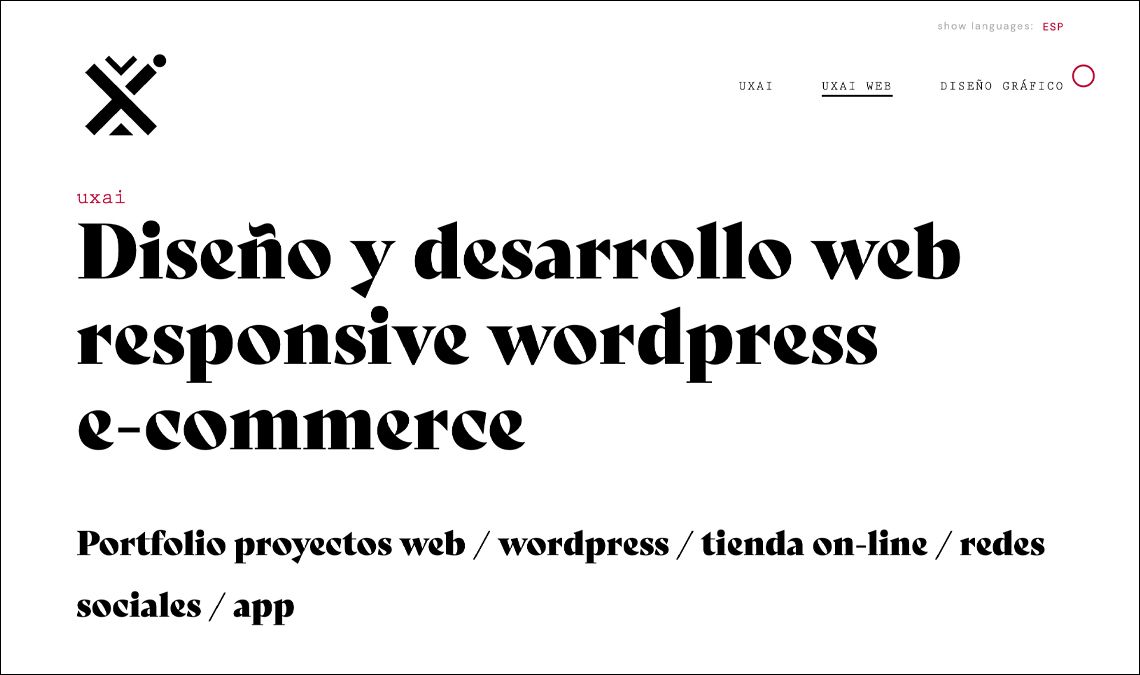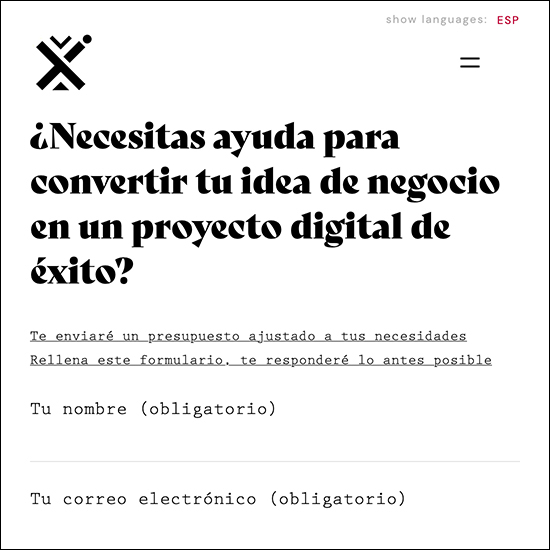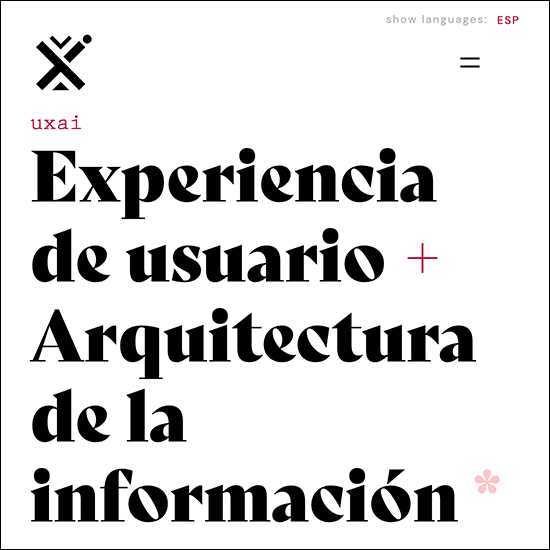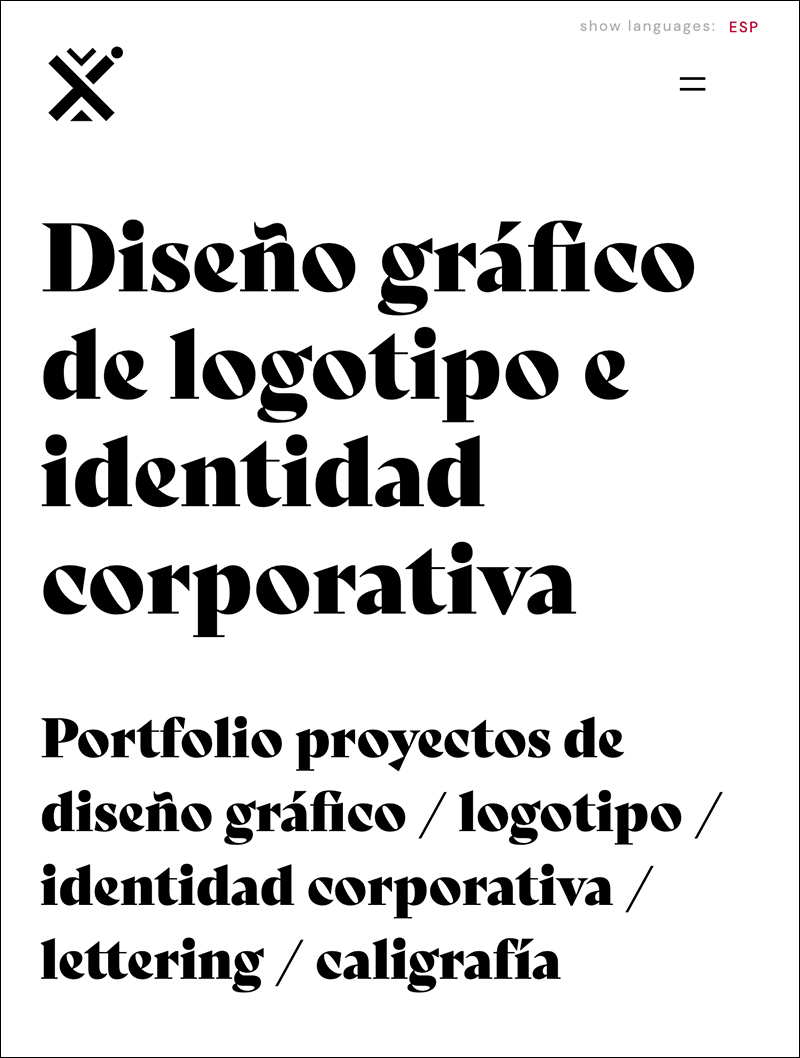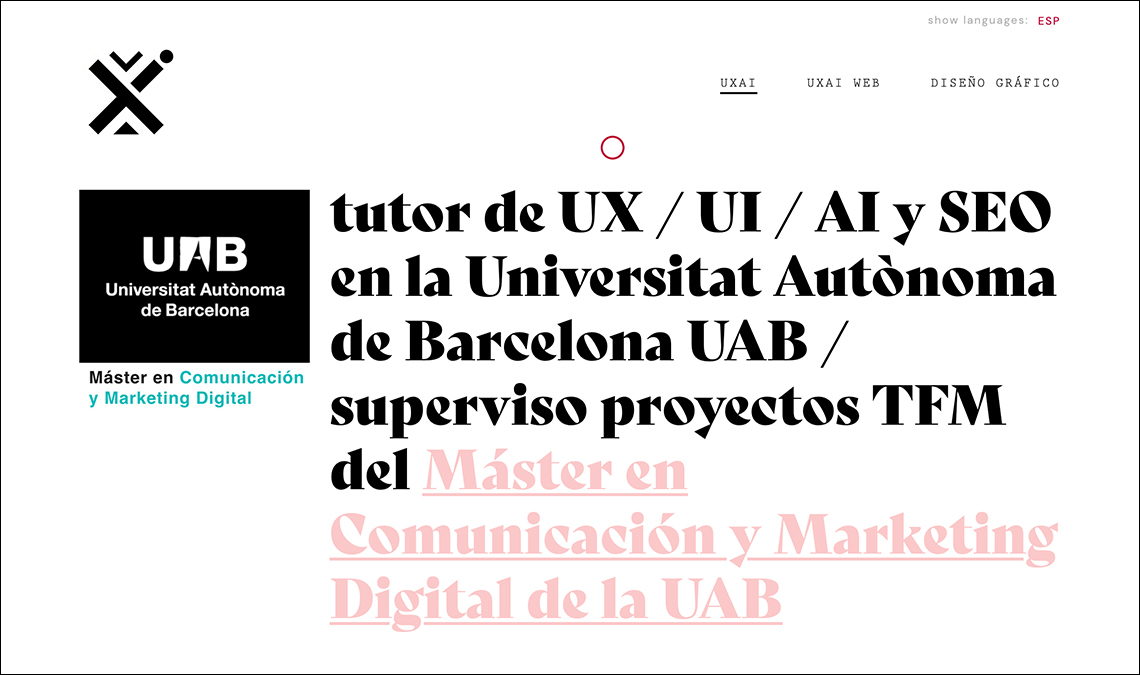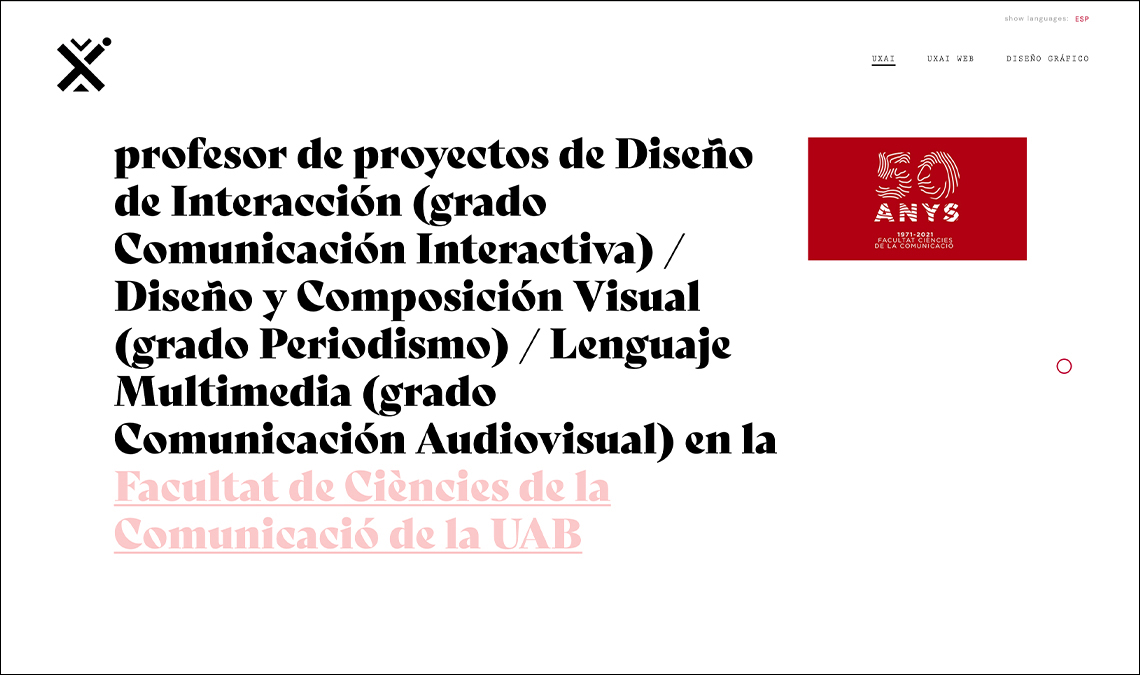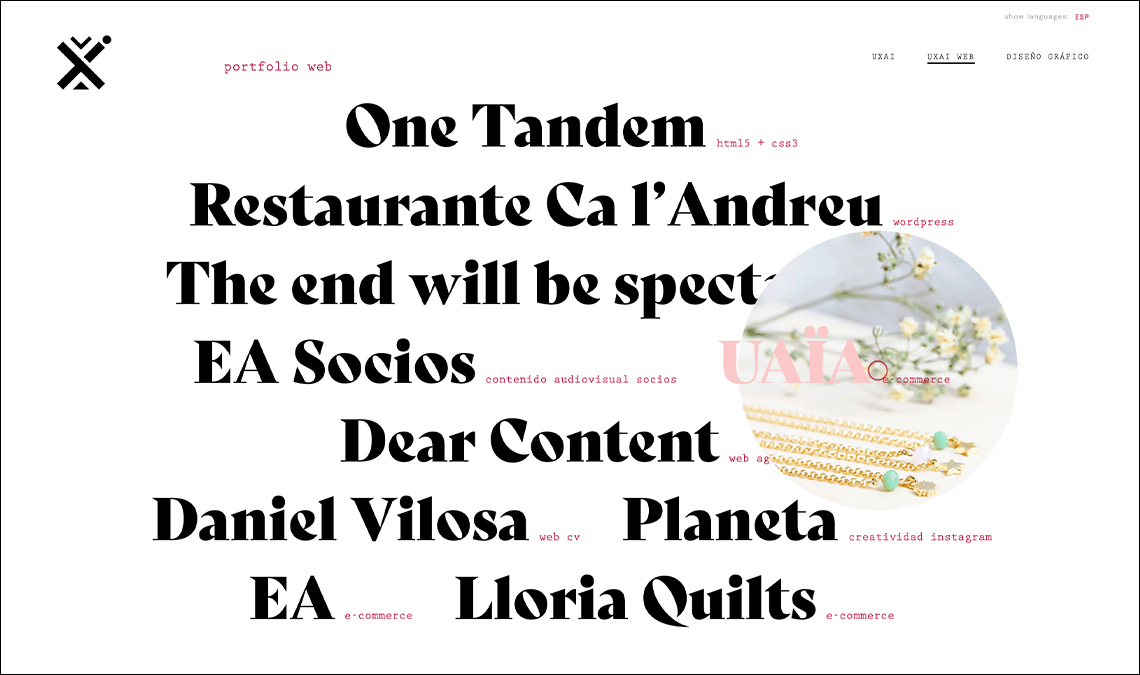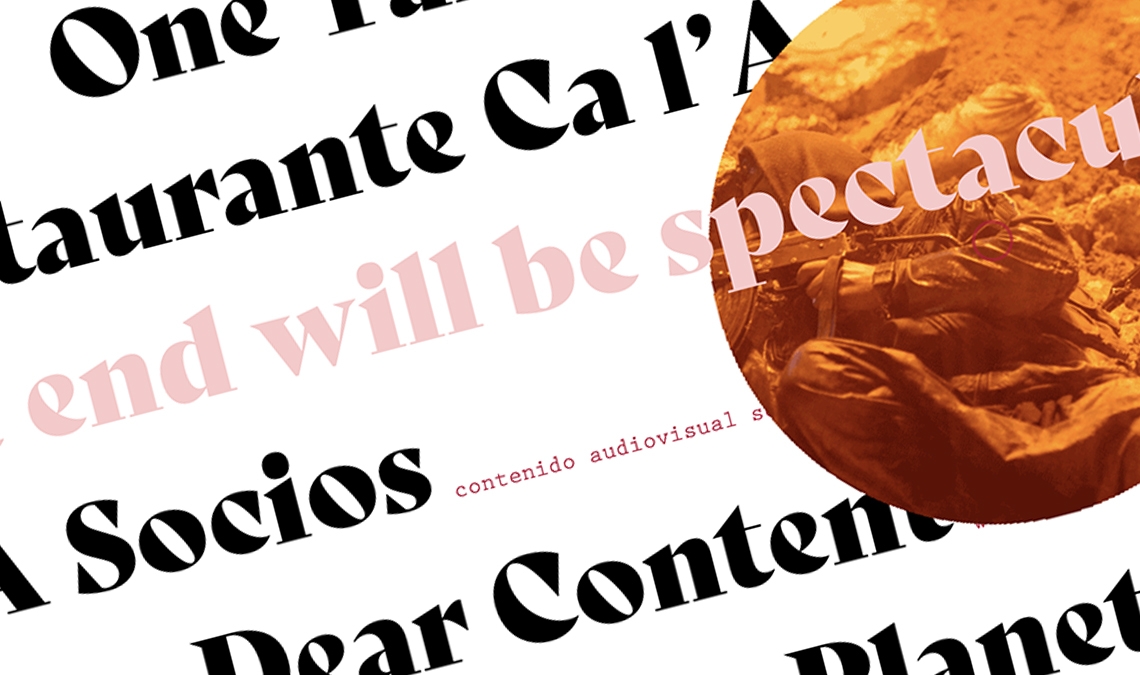
Bely in uxai website
UXAI is a website by Pep Sánchez Ríos, touting his abilities in design, usability, and overall experience.
User experience can be thought of as how easy and delightful a website is to interact with. Information should be easy to find, the website should be navigable overall, and it’s always a plus if there’s an element of surprise or joy within the system. The uxai website is a good example of those principles.
It lays out plainly, in Spanish and English, what to expect, how to see each category of work, and gives a few surprises in navigation and on hover. It’s clear Ríos is showing off a little, but that’s the advantage of having the skills to pull this off.
Ríos has done projects from film and websites to apps and e-commerce, and they are all beautifully voiced by Roxane Gataud’s Bely Display. Expressive, opinionated, and delightful — both the website and Bely.